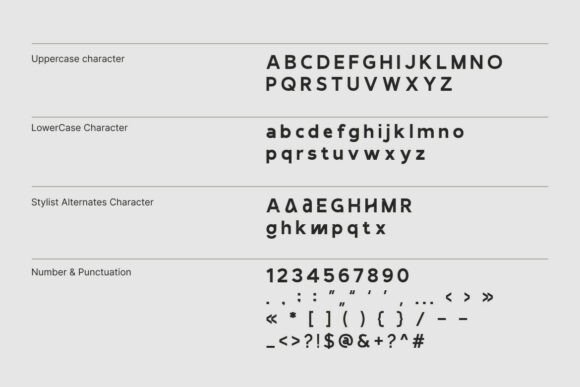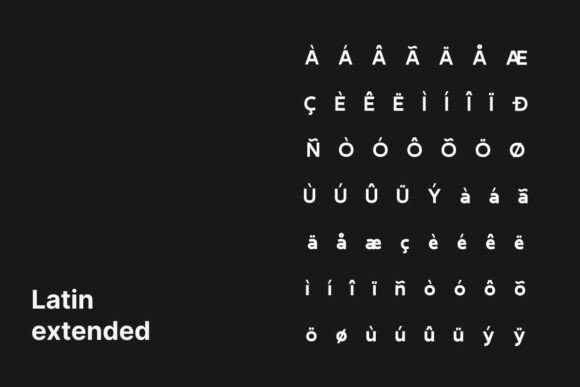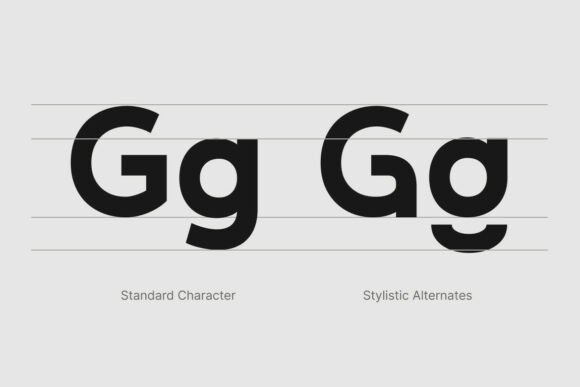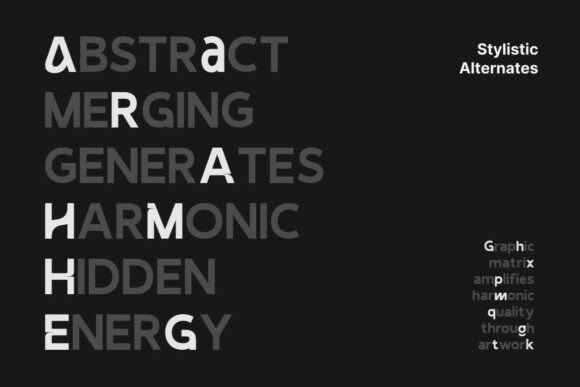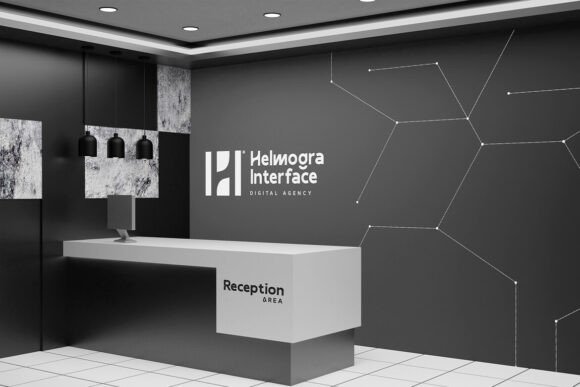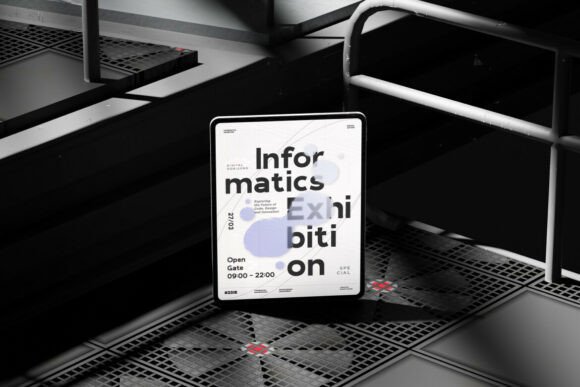
Introducing Gigamore Font: Elevate Your Brand with a Modern Sans Serif Typeface
In the world of typography, a font can make or break a brand’s identity. With the ever-evolving landscape of design, it’s essential to stay ahead of the curve with a typeface that exudes modernity, professionalism, and creativity. This is where Gigamore Font comes in – a game-changing sans serif typeface designed to revolutionize contemporary branding.
What is Gigamore Font?
Gigamore is a modern sans serif typeface that boasts bold proportions, smooth curves, and distinctive stylistic alternates. This unique combination makes it an ideal choice for brands seeking a clean yet distinctive identity that feels contemporary and professional. Whether you’re a tech startup, creative agency, fashion label, or editorial magazine, Gigamore Font has got you covered.
Key Features of Gigamore Font
- Bold Proportions: Gigamore’s bold structure ensures that your brand stands out from the crowd, making it perfect for headlines, website headers, and packaging design.
- Smooth Curves: The font’s smooth curves add a touch of elegance and sophistication, making it suitable for fashion labels, editorial magazines, and creative agencies.
- Distinctive Stylistic Alternates: Gigamore’s stylistic alternates offer a range of creative possibilities, allowing you to customize your brand’s typography to suit your unique style.
Use Cases for Gigamore Font
Gigamore Font is highly versatile and can be used in a variety of design applications, including:
- Corporate Branding: Establish a strong brand identity with Gigamore’s modern and professional typeface.
- Tech Startups: Make a statement with Gigamore’s bold and innovative design.
- Creative Agencies: Showcase your creativity with Gigamore’s unique stylistic alternates.
- Fashion Labels: Elevate your brand with Gigamore’s elegant and sophisticated curves.
- Editorial Magazines: Add a touch of modernity to your publication with Gigamore’s clean and distinctive design.
- Website Headers: Create a lasting impression with Gigamore’s bold and attention-grabbing typeface.
- Packaging Design: Stand out on store shelves with Gigamore’s bold and eye-catching design.
- Logo Creation: Establish a strong brand identity with Gigamore’s unique and memorable typeface.
Why Choose Gigamore Font?
In a crowded market, it’s essential to choose a font that sets you apart from the competition. Here are just a few reasons why Gigamore Font stands out:
- Modern and Professional: Gigamore’s sleek design ensures that your brand looks contemporary and professional.
- Highly Versatile: The font’s versatility makes it suitable for a wide range of design applications.
- Customizable: With stylistic alternates, you can tailor Gigamore to suit your brand’s unique style.
In conclusion, Gigamore Font is a game-changing sans serif typeface that can elevate your brand’s identity and take it to the next level. With its bold proportions, smooth curves, and distinctive stylistic alternates, Gigamore is the perfect choice for designers and crafters seeking a modern, professional, and creative typeface. Whether you’re looking to establish a strong corporate brand, create a bold logo, or simply add a touch of modernity to your design, Gigamore Font is the ultimate solution.